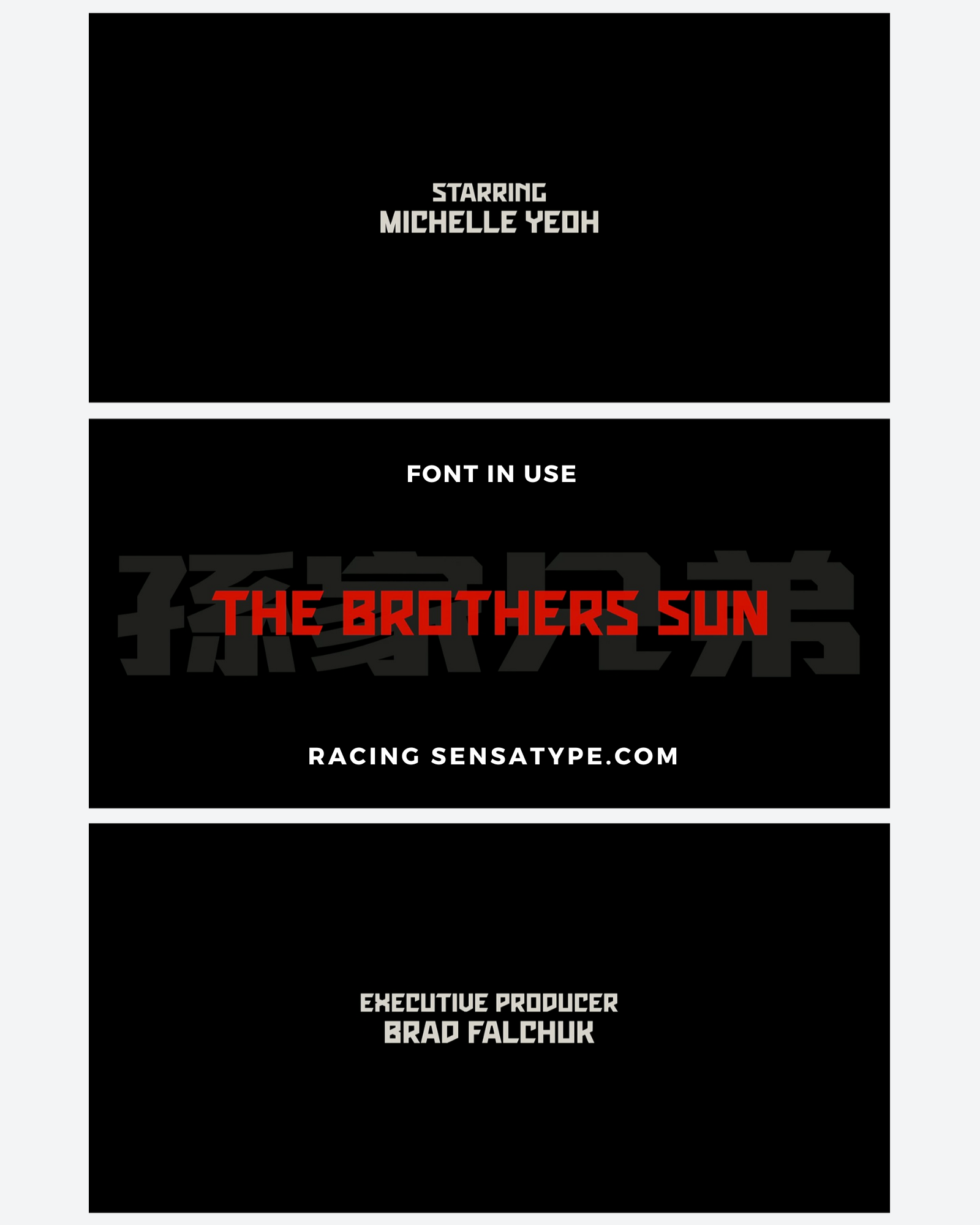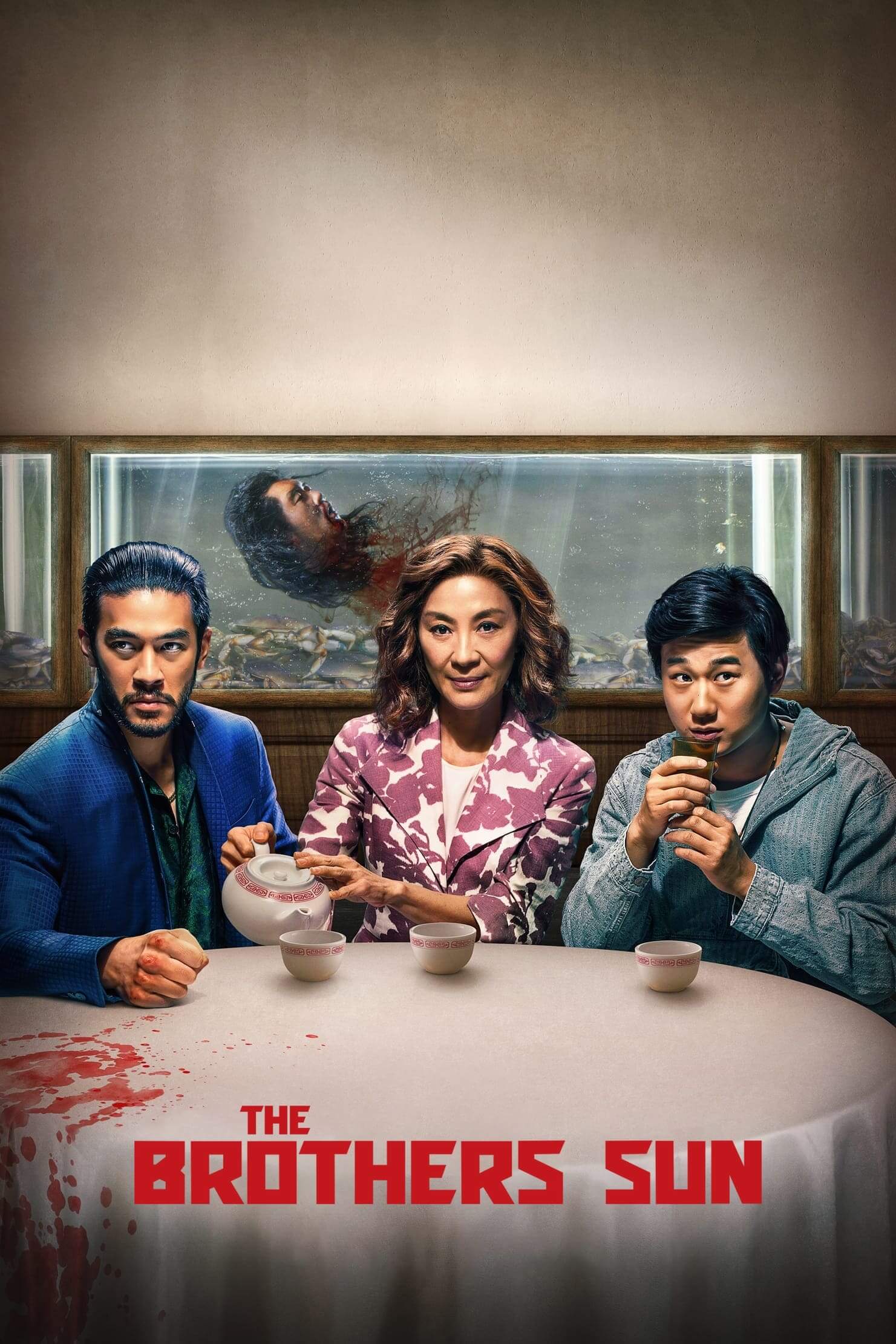
The Brother Sun Font
About The Brother Sun Font
Racing Typeface in Use
"The Brothers Sun" an American action comedy-drama series created by Brad Falchuk and Byron Wu, debuted on Netflix on January 4, 2024. The show's title and promotional materials showcase a deliberate choice of typography that embodies its thematic essence and visual appeal. The primary font utilized for the title is Racing, an angular display typeface designed by Zamroni Hamzah and published by Sensatype Studio. This font’s sharp edges and dynamic form convey a sense of movement and excitement, aligning well with the show’s action-oriented premise.
Racing Font, Perfect for a Range of Applications
Branding
In today's competitive marketplace, a compelling brand identity is crucial for success. The Racing Modern Ultra Sport Font offers businesses the opportunity to create memorable visual identities that resonate with their target audience. Whether launching a new sports brand or revitalizing an existing one, this font imbues promotional materials, business cards, and packaging with the boldness needed to stand out. The visual impact of Racing amplifies brand recognition and speaks directly to consumers looking for excitement and innovation.
Titles
Captivating titles are essential for engaging an audience, particularly in industries such as media and advertising. The Racing font's distinctive style allows titles to leap off the page or screen, making them ideal for websites, magazines, and marketing campaigns. By utilizing this font, designers can ensure that their titles not only attract attention but also convey the energy of the content they introduce.
Posters and Banners
When it comes to event promotion—be it a sports competition, a product launch, or a festival—posters and banners must communicate urgency and excitement. The Racing Modern Ultra Sport Font excels in these environments, where bold, dramatic typography is needed to draw the eye and command attention. Its capacity to convey movement, combined with its modern aesthetic, makes it a perfect choice for visual communication that aims to excite or inspire.
Digital Media
In an increasingly digital world, the importance of impactful typography cannot be overstated. The Racing font integrates seamlessly into digital platforms, enhancing websites, social media graphics, and video content. This adaptability ensures that brands maintain a cohesive and dynamic presence across various media channels, thereby reinforcing their identity and message.
Enhance Your Creative Projects
The Racing Modern Ultra Sport Font invites creativity and experimentation. It empowers designers and creators to explore different styles, applications, and color schemes to fully realize their artistic visions. Whether you're a seasoned graphic designer, a marketing professional, or an enthusiastic hobbyist, this font serves as both a functional typeface and a source of inspiration. It encourages innovative attitudes towards typography, urging users to press boundaries and create striking visual narratives.
Why Choose Racing Modern Ultra Sport Font?
- Unique Design: The sleek, sporty aesthetic of the Racing font gives your projects a contemporary edge, setting them apart from the competition. Its design is not only eye-catching but also thoughtful, ensuring that it communicates the desired message effectively.
- Versatility: While the Racing font shines in action-oriented applications, its versatility allows it to adapt to a variety of industries and projects. From tech startups to lifestyle brands, this font can effectively meet diverse design needs.
- High Quality: We are committed to providing top-tier fonts that cater to modern design requirements. With the Racing font, you can expect crisp, clear typography across all mediums, ensuring your designs look their best.
In conclusion, whether you aim to evoke a sense of fierce competition or maintain a clean and modern aesthetic, the Racing Modern Ultra Sport Font is an exemplary choice for your design projects. Its bold presence is perfectly suited for any initiative requiring a striking statement, enabling you to communicate ideas with clarity and flair. Embrace the energy and innovation that this font offers, and transform your creative endeavors into a captivating visual experience. Step into the future of design with Racing—where typography meets motion and inspiration.